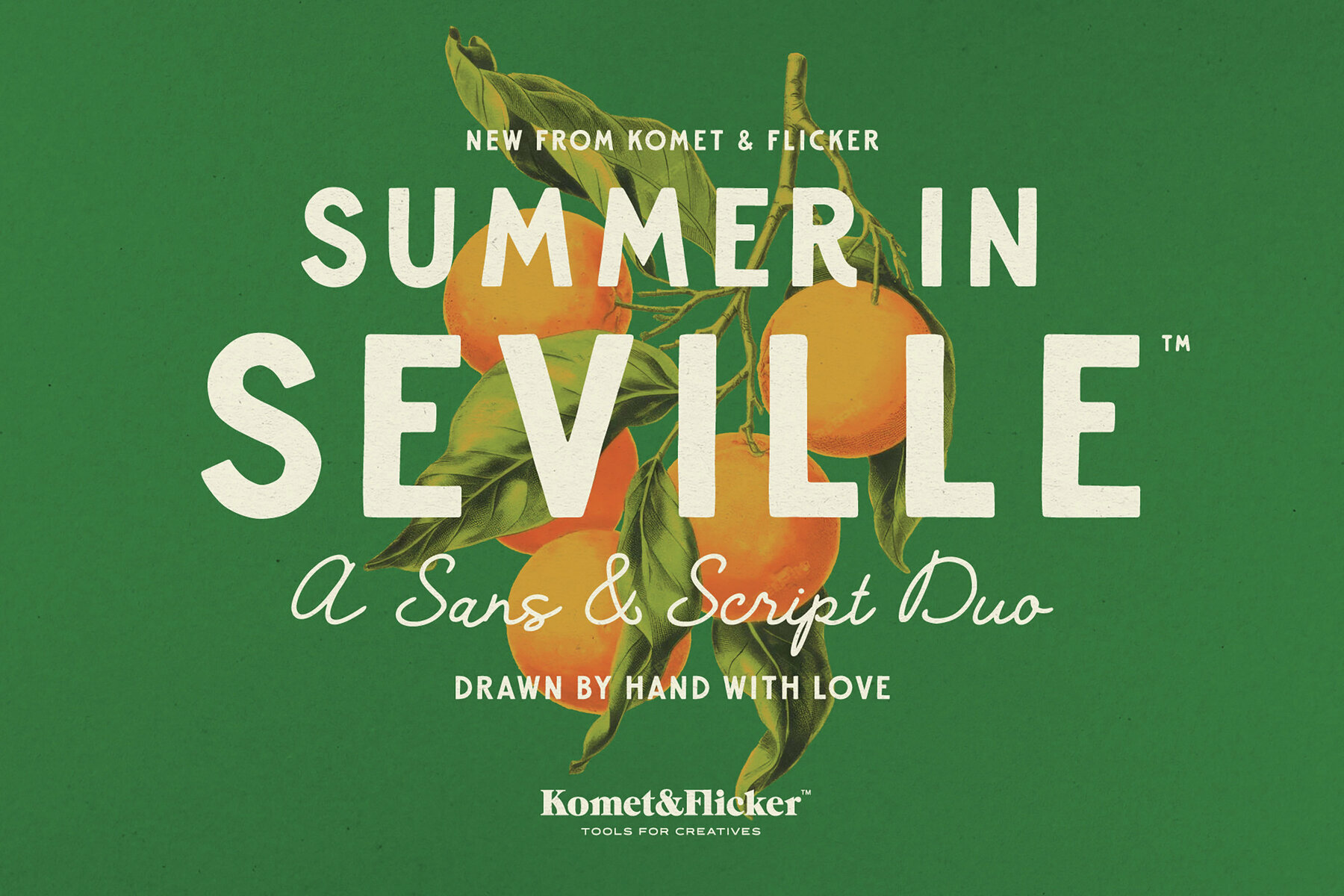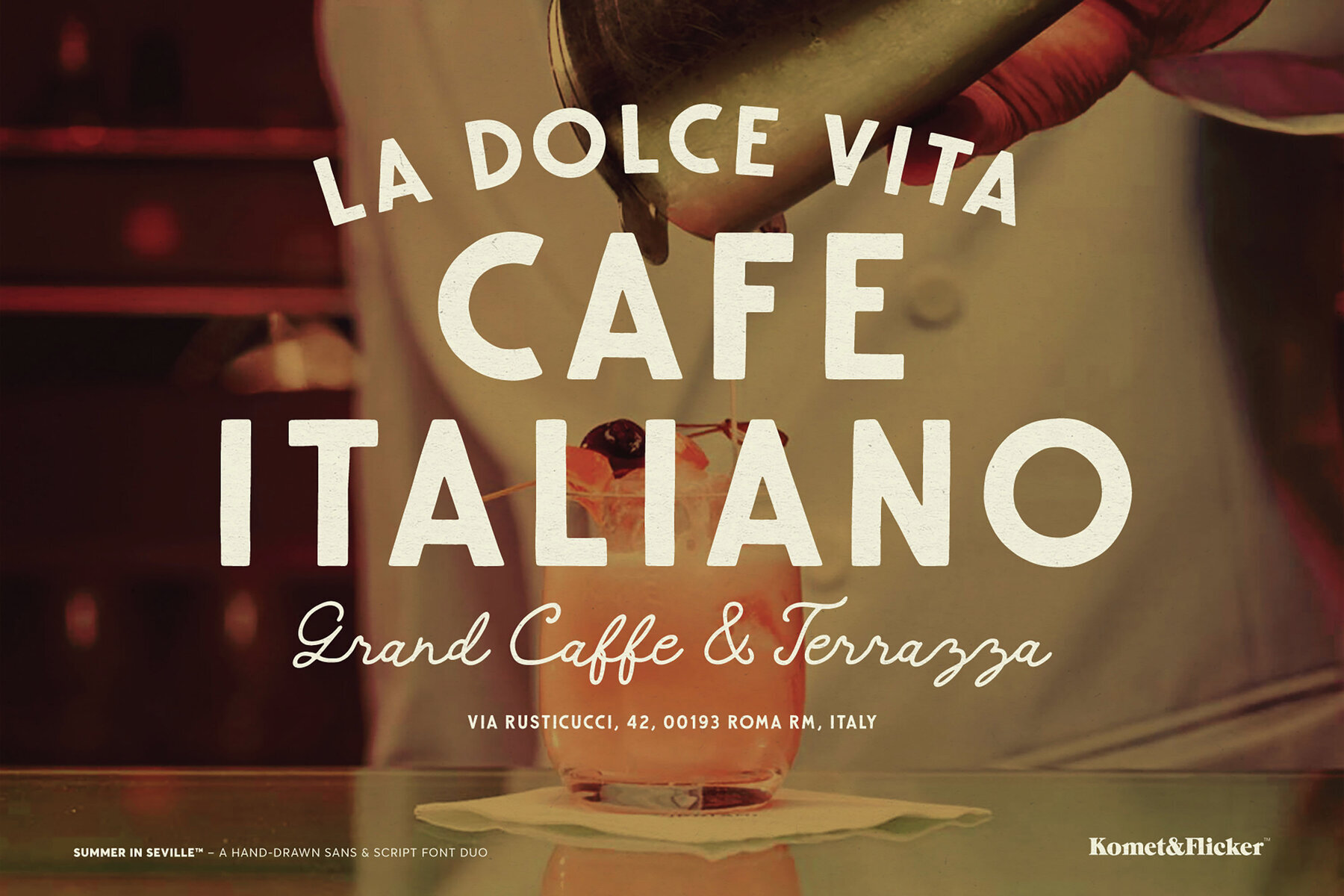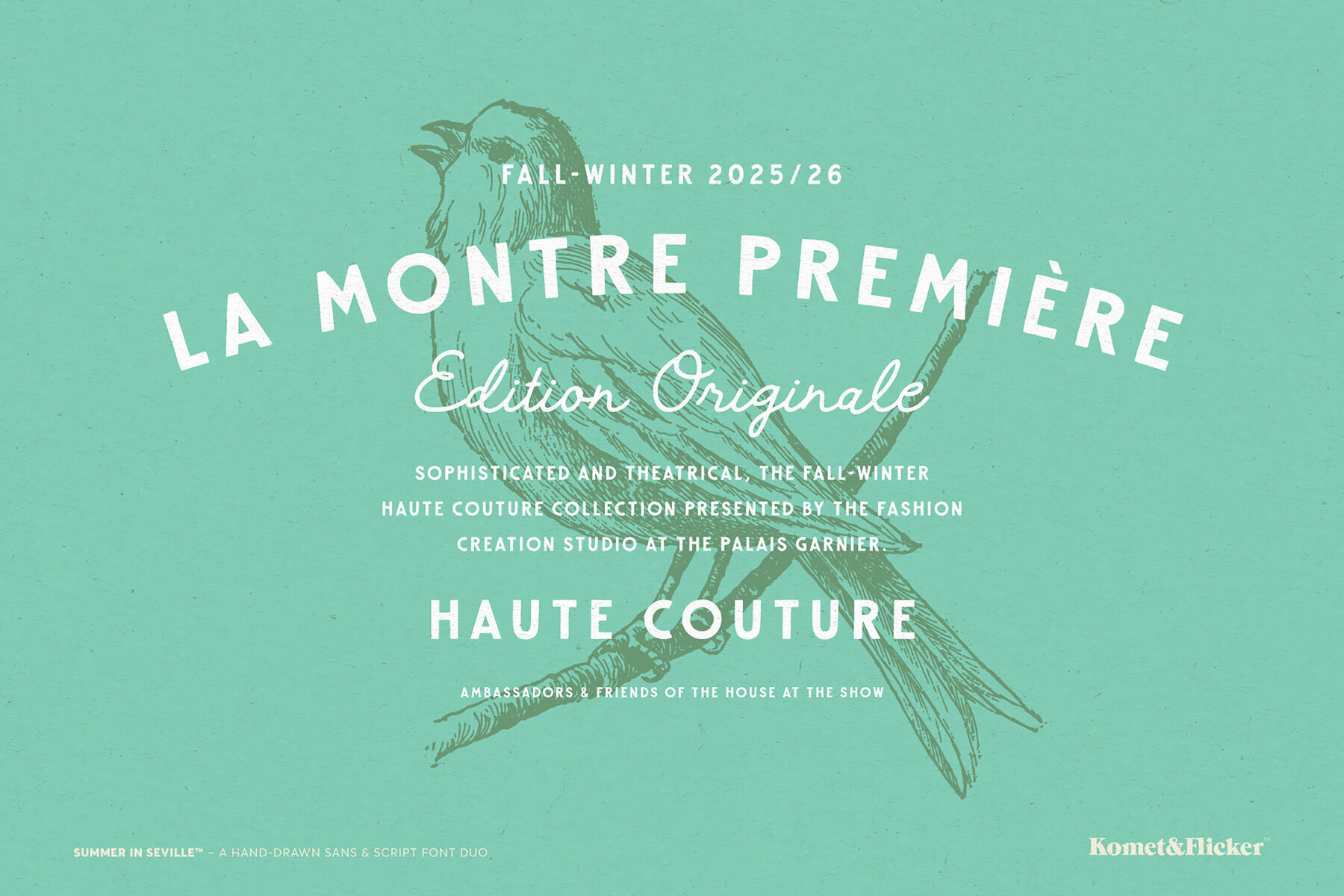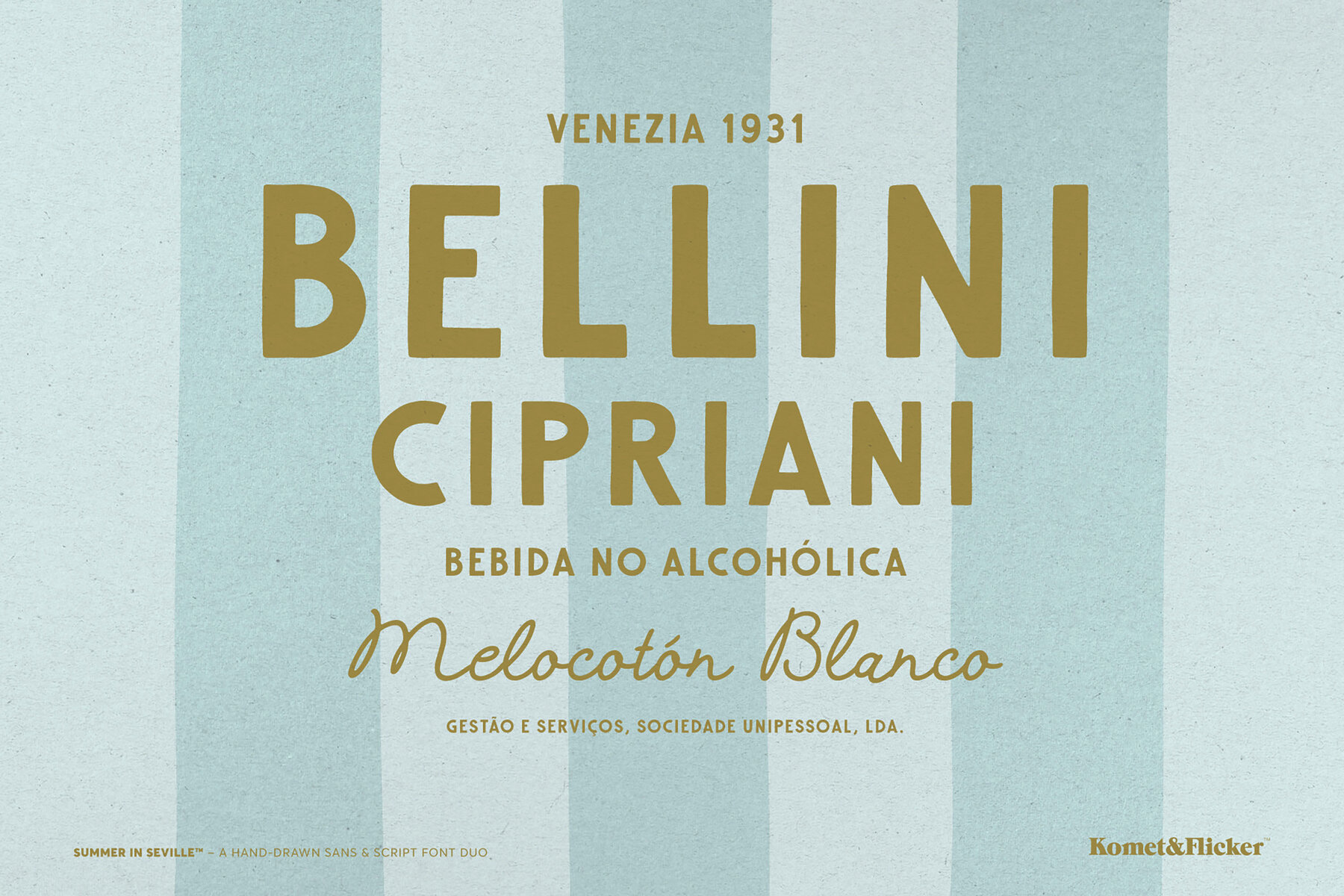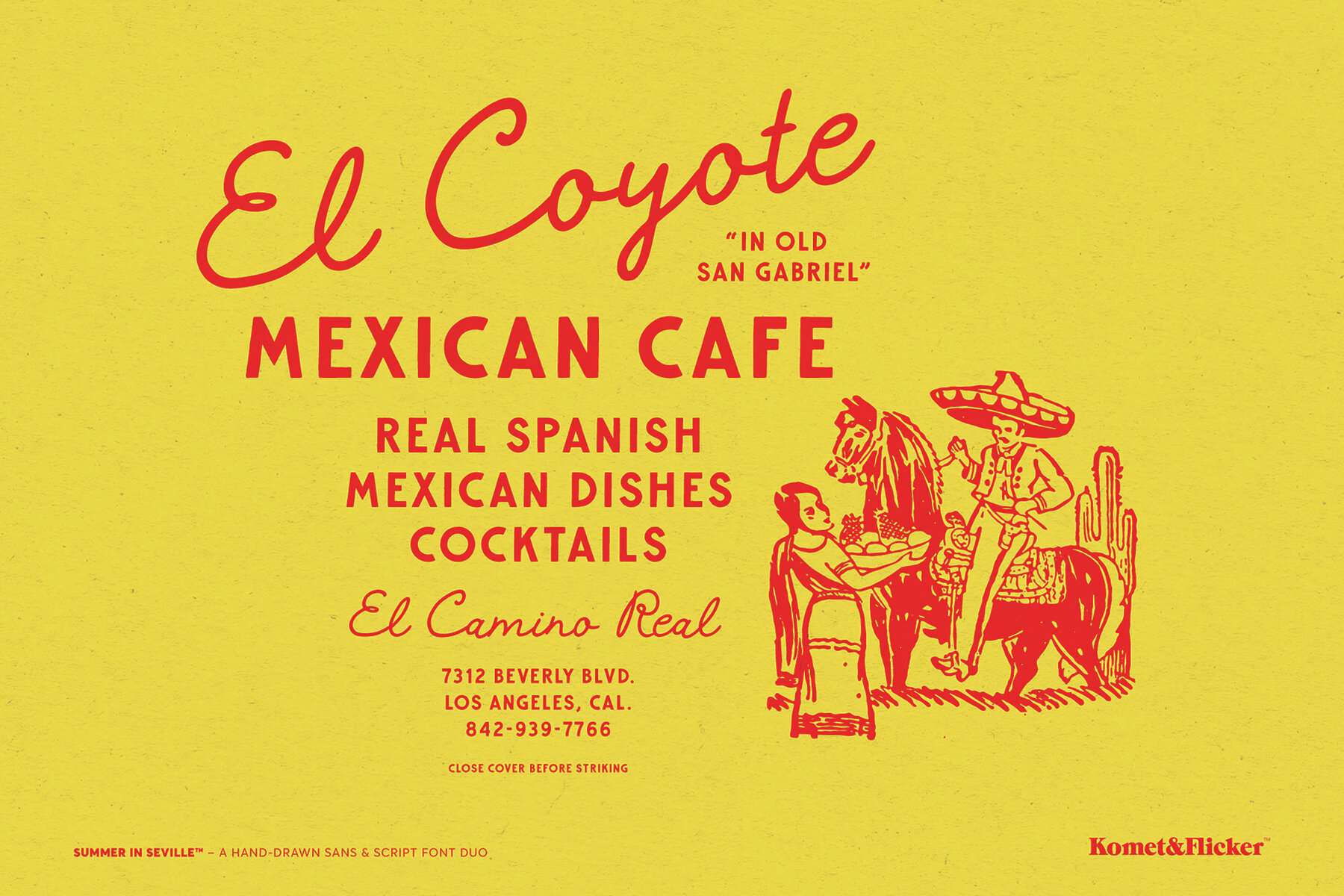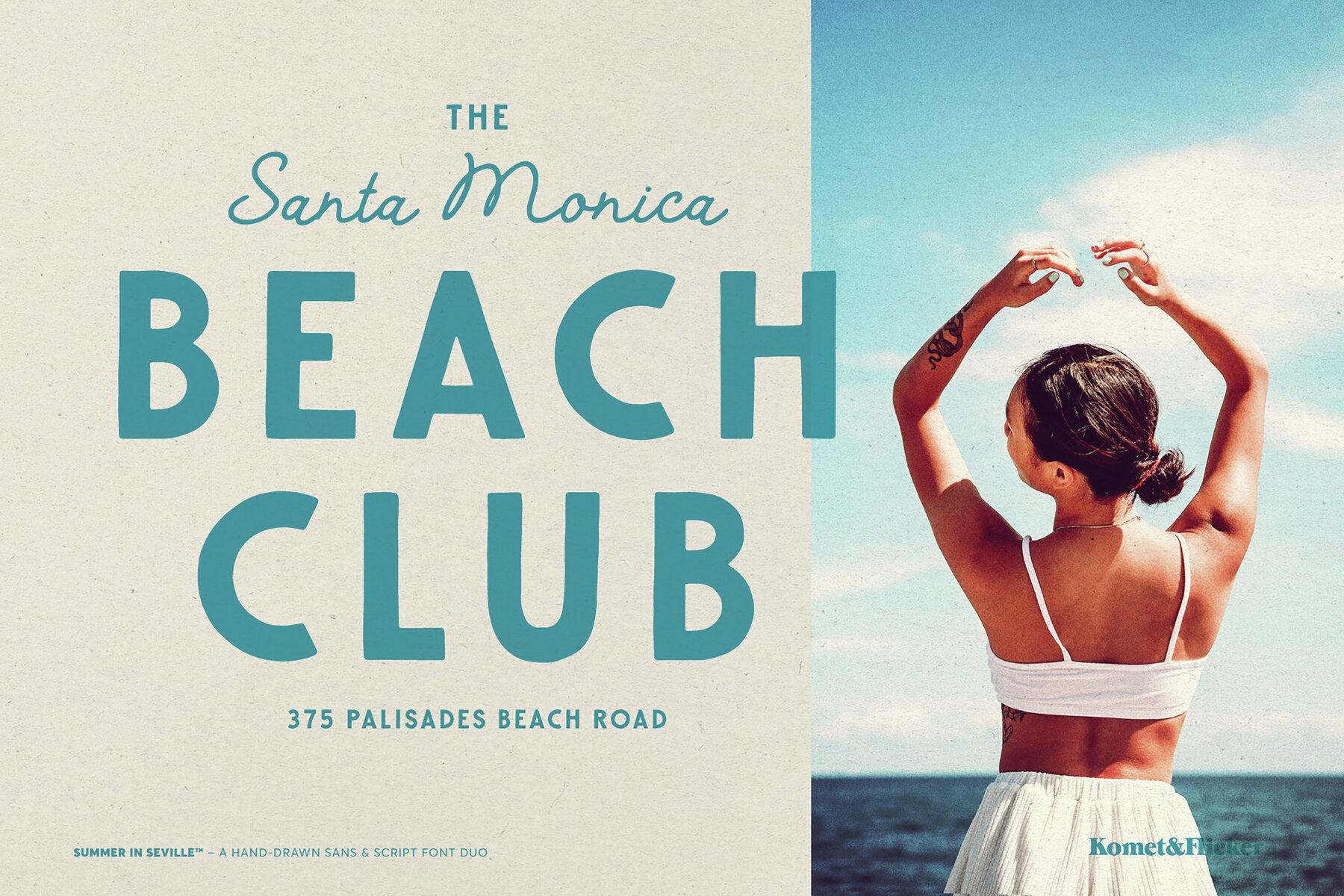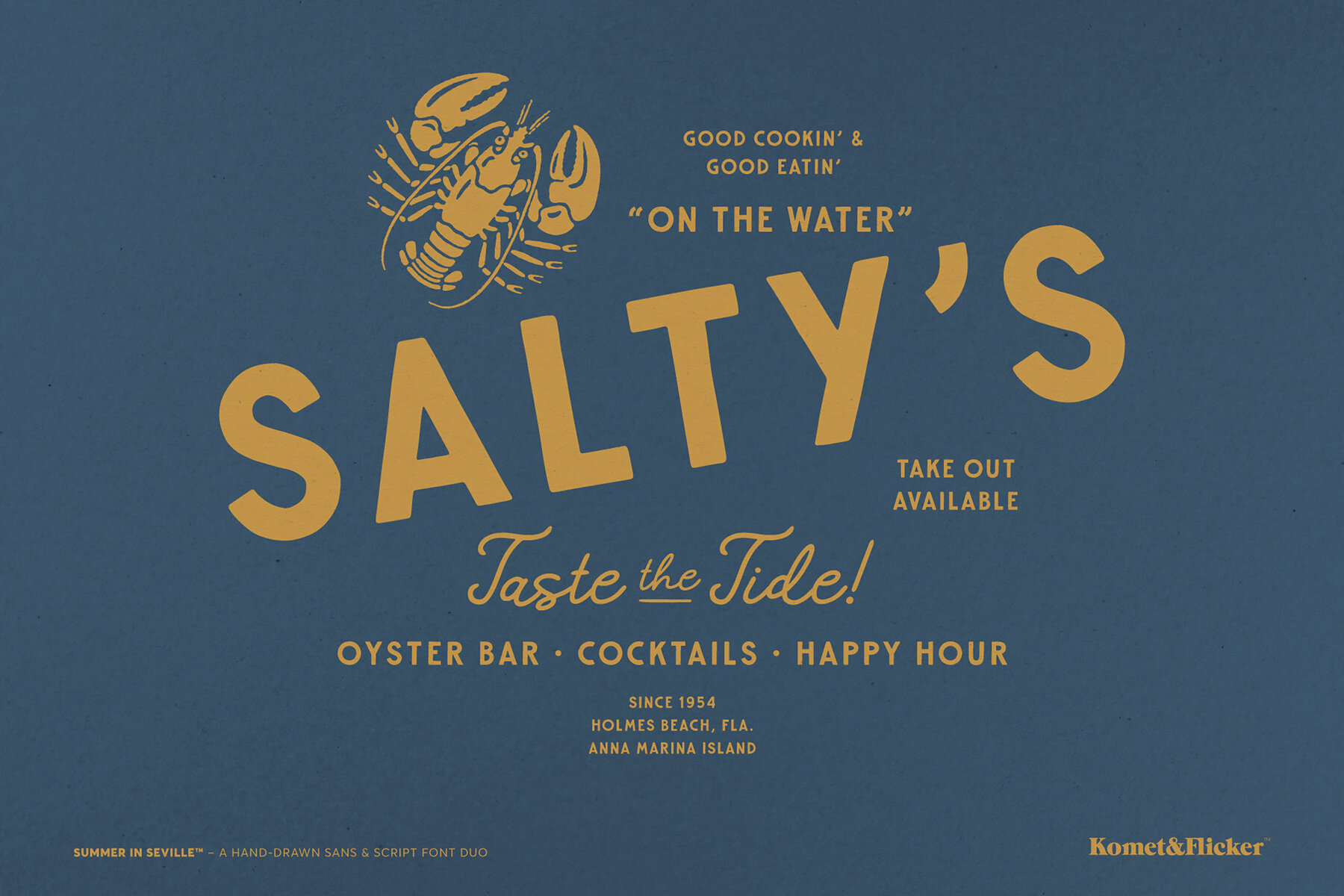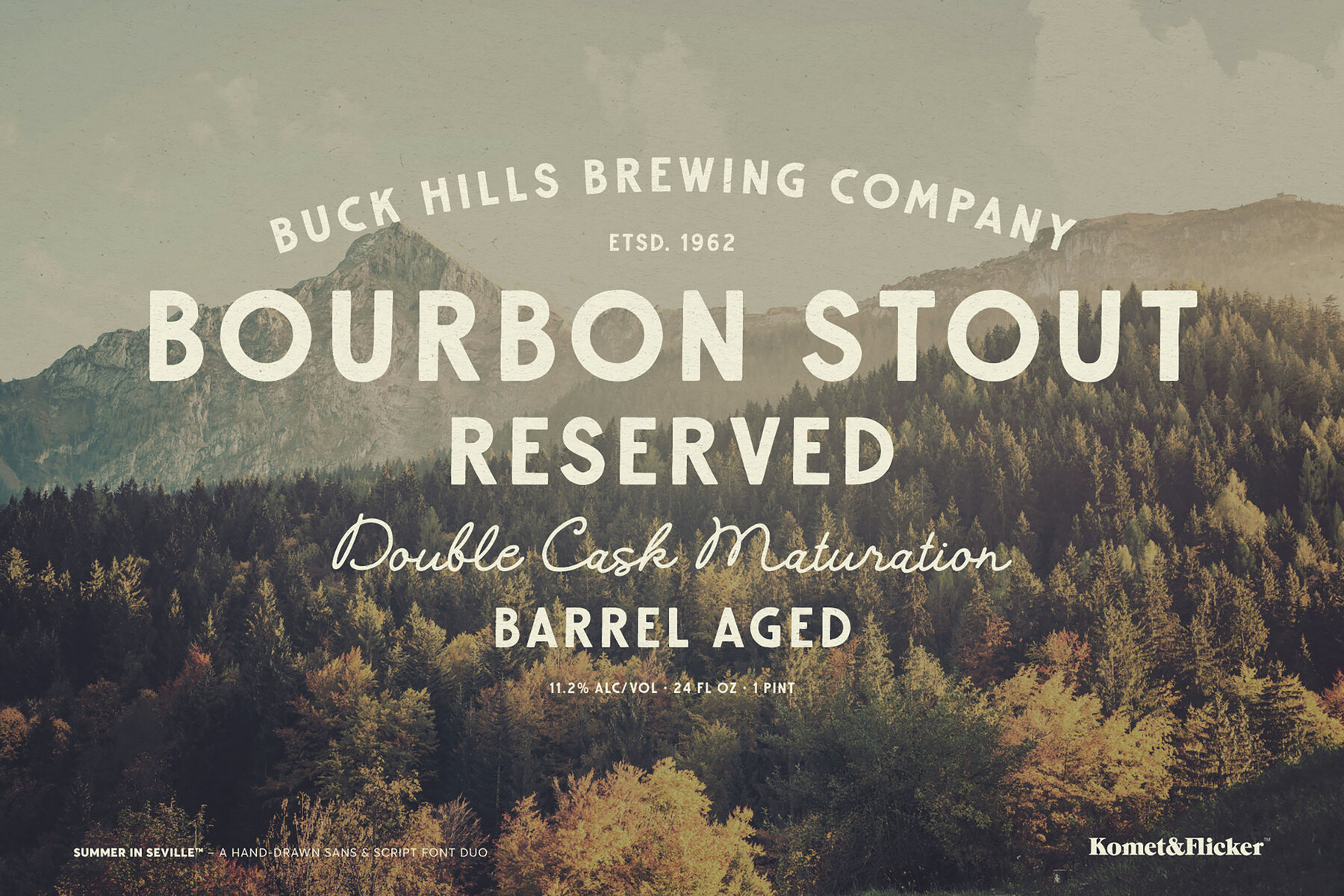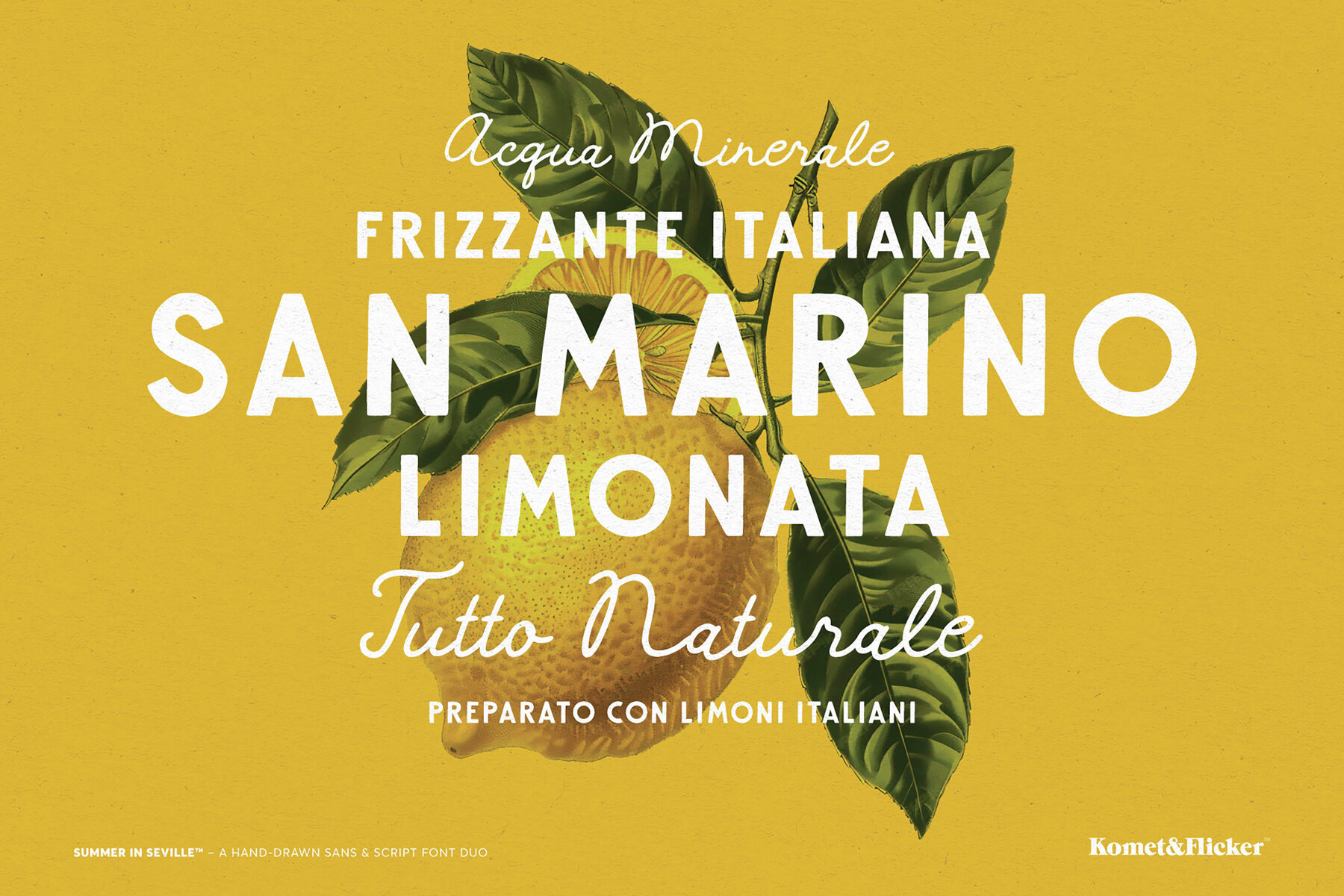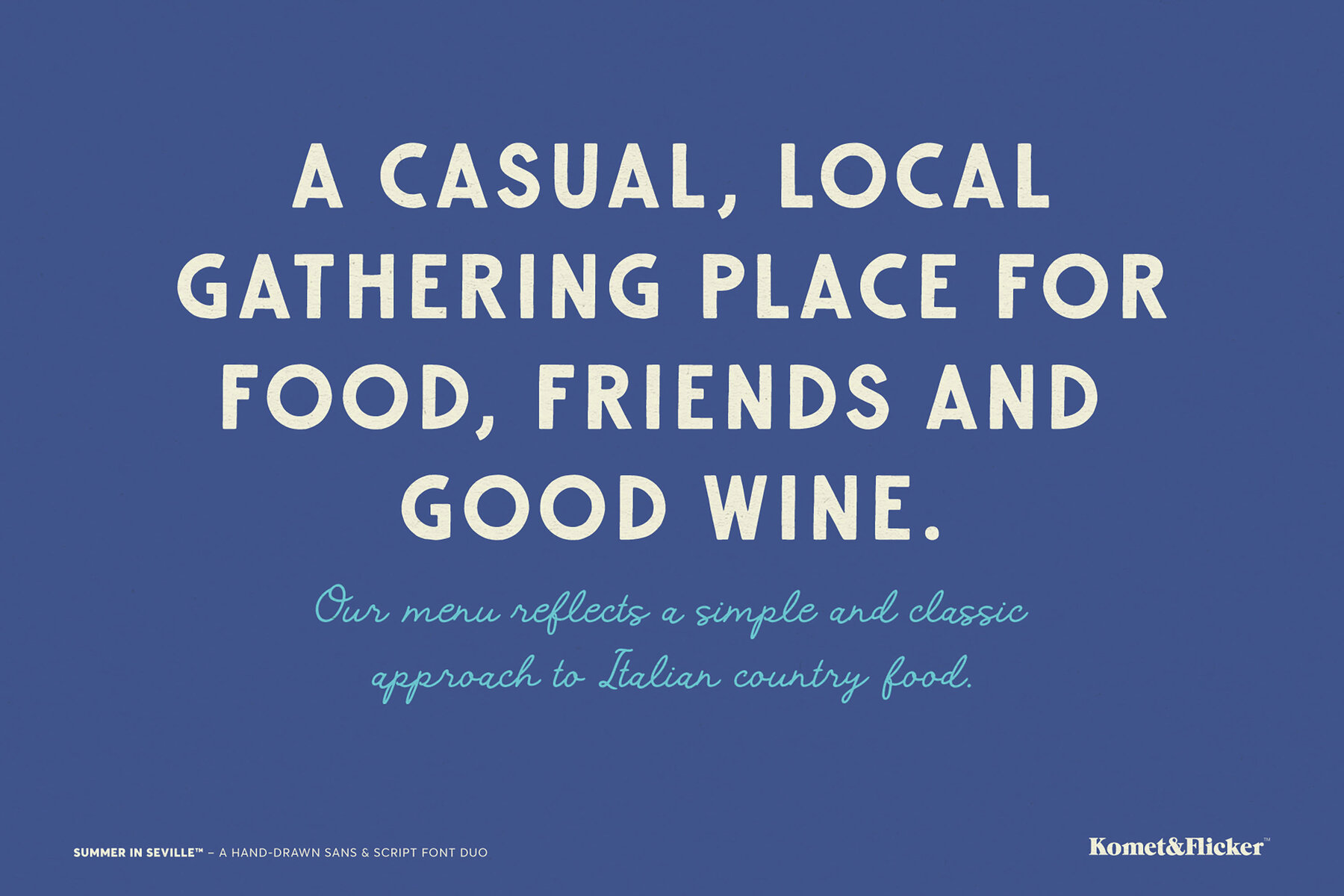
Summer in Seville Font
Summer in Seville Sans
Summer in Seville Script
Bring the warmth of sunlit days and a touch of vintage charm to your creations with Summer in Seville, an artisanal font duo inspired by timeless European typography. It embodies a delightful blend of elegance and nostalgia, crafted to enhance various design projects. This font pair features a bold sans serif and a casual, flowing script, both meticulously hand-drawn. Together, they offer a seamless balance that exudes both sophistication and character, ideal for logos, packaging, travel posters, menus, and invitations that seek authenticity and warmth. Additionally, the inclusion of 20 connecting word glyphs allows for expressive layouts, fostering a coherent and effortless design process. Employ the retro European flair and textured craftsmanship of Summer in Seville to imbue your projects with artistic timelessness. Access extra custom glyphs in Illustrator via "Type → Glyphs" panel, and in Photoshop through "Type → Panels → Glyphs Panel."Summer in Seville: A Font Duo with Vintage Charm